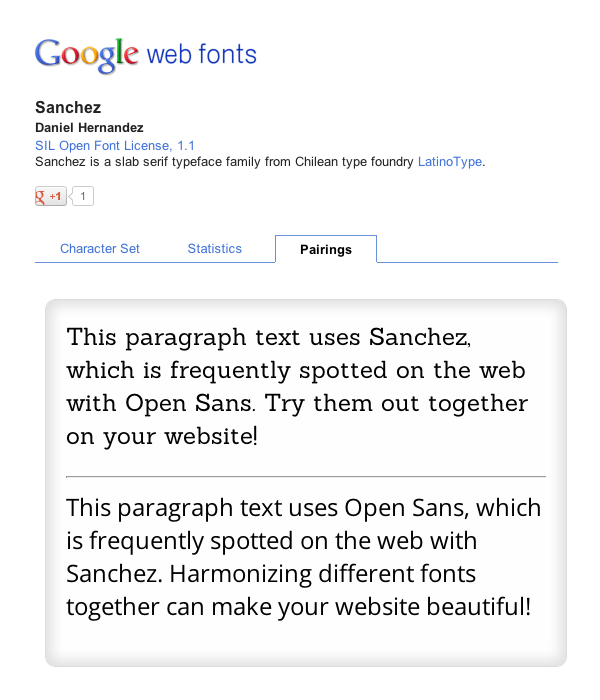
A Beginner’s Guide to Pairing Fonts
Pairing fonts can be a challenge. Selecting two or more fonts which work well is one thing – selecting two which work together to achieve your typographic aims may have you reaching for the aspirin. Let’s see if we can alleviate any headaches. This guide will help you get started with font pairing for the web.
Luckily, typography has been around a lo-oong time. Typographic rules and conventions have had plenty of opportunity to establish themselves and there are loads of resources to help you out. The only problem is that by searching the internet you’re only going to find yourself confronted with millions of conflicting opinions! Let’s see if we can clarify a few things.
Your Aim
Keep the essentials in mind. When you’re selecting multiple fonts to work together it’s crucial that you maintain both unity and variety.
How Many Fonts Should I Use?
How many fonts you throw into the mix is entirely up to you, but bear in mind the overall effect you’re trying to achieve. Fonts, like people, have personalities. And fonts’ personalities, just like those of people, can sometimes clash. Think of your fonts as table guests at a wedding reception; one entertainer is usually enough as too many strong personalities can make the atmosphere awkward, like an episode of Big Brother.
Make sure that there is some charisma in the group though; eight people with little to say just results in a toe-curling wait for the speeches..
It’s no longer around, but the Fusion Ads 2011 bundle site sicks in my mind as a great example of successful stack-em-high font use.
There are no rules to say you should or shouldn’t use a specific number of fonts on a page layout. Using multiple fonts together can be difficult, achieving harmony is challenging, but if you manage it the result can be decorative and striking. Use fewer fonts and your task is more straight forward. Try to make the best of both worlds by selecting fonts with multiple variants and weights. In this way you can take advantage of an array of styles, safe in the knowledge that they’ll compliment each other just fine.
To Buy or Not to Buy?
There are loads of free services through which you can take advantage of @font-face: google fonts, fonts.com, fontsquirrel’s font kit generator, but don’t immediately discount paying for fonts if the project warrants it. The cost of a single domain license can vary, but there are several advantages to shelling out.
Quality. The care and attention which goes into the production of commercial fonts is usually evident in the quality. That’s not to suggest the designers behind free fonts are caged monkeys, far from it, but there is often a qualitative difference. It’s a difference noticeable in the finer details; the line thicknesses, the forms, the white space and the kerning (spacing between characters).
Compare these two similar fonts..
The kerning executed with Museo is superior. Without some tinkering, the kerning in Quicksand is imperfect (focus on the ‘o’ and the ‘i’ for example), and tinkering with kerning on the web isn’t hugely intuitive. There are tools, kern.js for example, which allow you to specify kerning on a per-character basis, but large bodies of text make this impractical.
“Big deal, the difference is barely perceptible!” you may say, but the devil’s in the details. So my Nan tells me.
Originality. Another advantage is the opportunity to stand out with original work. Having paid for your fonts, there’s a greater chance your design will retain an element of uniqueness.
Community. Putting your hand in your pocket is also a way of encouraging the growth of the industry. Foundries rely on healthy commerce to continue their craft. In any case, we’re looking at a cost which can be factored into the project and passed on to the client.
What’s the Nature of my Content?
When selecting fonts it’s important to consider the nature of the layout you’re dealing with. Are we talking mainly body copy? Are there multiple headings, sub-headings? Perhaps it’s a magazine layout with decks, blockquotes? When using multiple fonts make sure that the roles are clearly established; if one font is used as a sub-heading, don’t switch to another font for a sub-heading elsewhere. Keep a font’s purpose clear.
For the time being, we’ll keep things straight forward and select a few font pairs. We’ll consider the circumstances under which they’ll work well together, and ask ourselves why.
How Do I Achieve Successful Pairing?
You might have already heard this; successful pairing relies on concord, or contrast, but not conflict. That is to say your selected fonts can work well together by sharing certain qualities, or by being completely different from one another. However, font pairs can conflict in a number of ways – being too similar being just one.